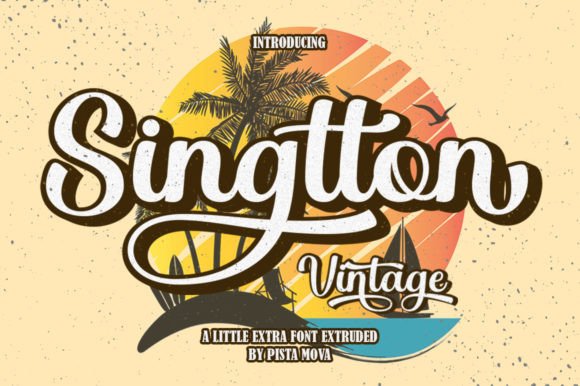
Introducing Singtton Vintage Font, the epitome of cuteness, coolness, beauty, intelligence, and fun! Crafted by the talented Pista Mova, this vintage retro-style script font is here to elevate your business documents and make them truly unforgettable.
Singtton Vintage Font is a bold and captivating font that will grab the attention of anyone who lays eyes on it. With its wide range of alternatives and fascinating ligatures, this font is a true delight for all you letter lovers out there. It offers endless possibilities to create unique and stunning designs that will leave a lasting impression.
But that's not all! Singtton Vintage Font is not just for personal use; it's a font that means business. Its bold style exudes confidence and ensures that your product stands out in the competitive market. Whether you're designing a logo, logotype, or any branding material, this font will bring a touch of vintage charm and sophistication to your project.
Imagine your logo adorned with Singtton Vintage Font, instantly capturing the essence of your brand. It's like a time machine that takes your customers back to the golden era, where elegance and style reigned supreme. Let your brand speak volumes with this font, showcasing your commitment to quality and attention to detail.
But what sets Singtton Vintage Font apart from the rest? Its versatility and adaptability. It seamlessly blends with any design style, effortlessly complementing your visuals and enhancing their impact. Whether you're going for a retro, vintage, or modern look, this font effortlessly adapts to suit your needs.
Don't settle for ordinary fonts that fade into the background – choose Singtton Vintage Font and make a statement. Let your creativity soar as you explore the endless possibilities this font offers. From eye-catching headlines to elegant business documents, this font will be your secret weapon in capturing your audience's attention and leaving a lasting impression.